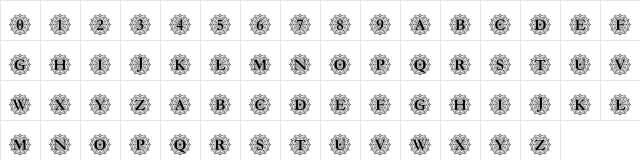
Spider_Web_Mono Regular
Design Context for Spider_Web_Mono Typeface
Spider_Web_Mono uses fixed-width spacing throughout, giving it the structured, systematic character associated with coding environments and technical documentation.
Pro Tip: Use Spider_Web_Mono with slightly increased line-height for extended reading — fixed-width spacing can feel dense in longer passages without extra breathing room.